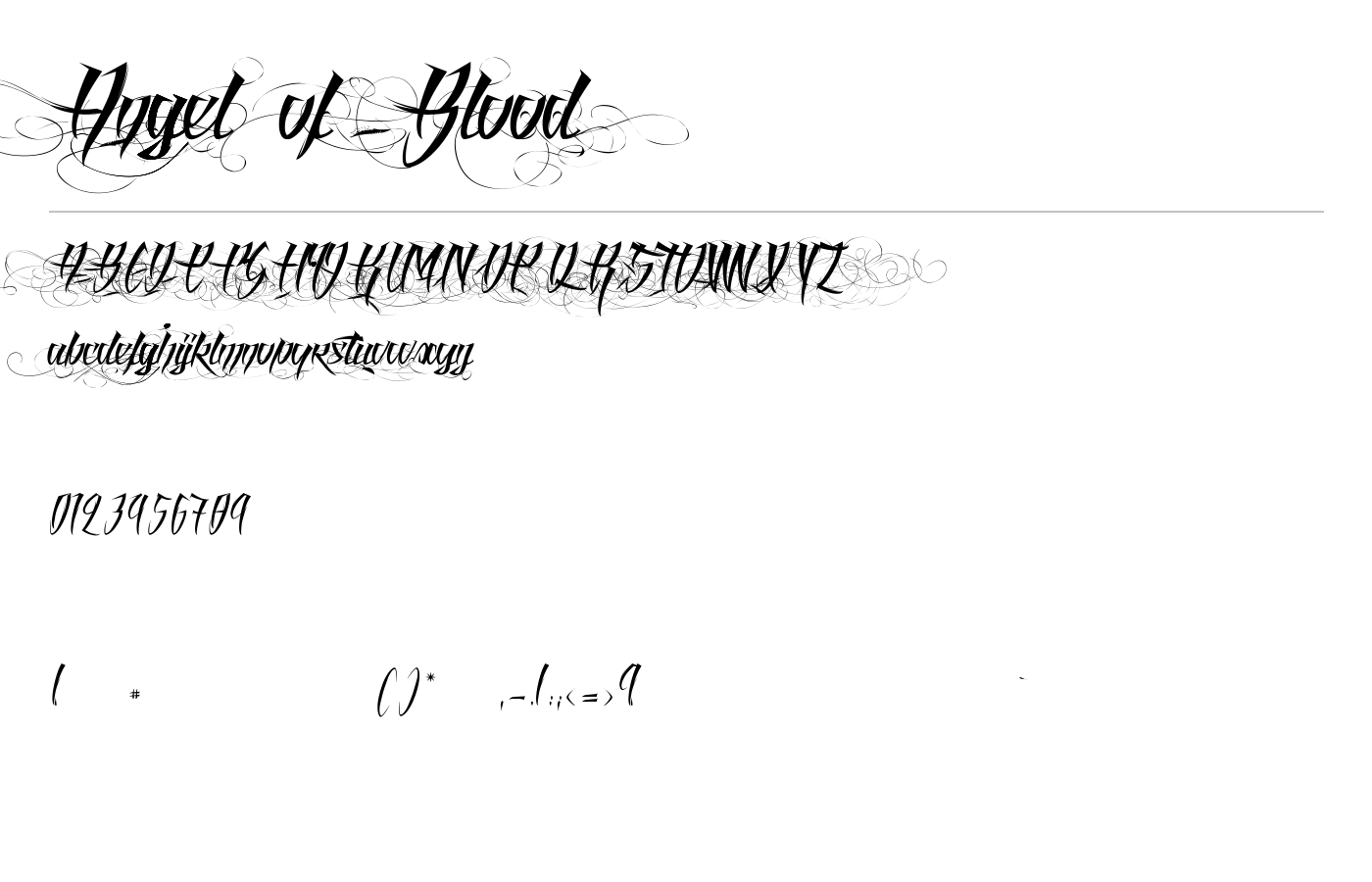
Angel of Blood is an elegant and dramatic script font featuring sharp, flowing strokes with elaborate swashes that create a gothic, calligraphic feel. Its high contrast between thick and thin lines, combined with intricate flourishes, makes it perfect for luxury branding, invitations, and headlines where a bold, artistic statement is desired. This font’s ornate style adds a mysterious, vintage charm that suits fashion, editorial, or decorative uses.
Angel of Blood Font
About Angel of Blood Font
| Font family | Angel of Blood Font |